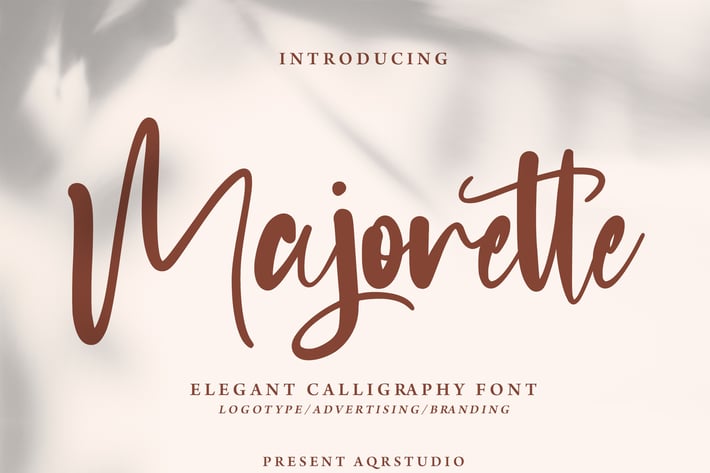
Majorette - Elegant Calligraphy Font
Majorette - Elegant Calligraphy Font contains a lowercase, uppercase, symbol, and also supports multi-language. There’s a lot of ligature in this font. Majorette - Elegant Calligraphy Font also comes with ligatures, stylistic alternates and many more.
this font suitable for fashion, branding, catalog and other design that you want.